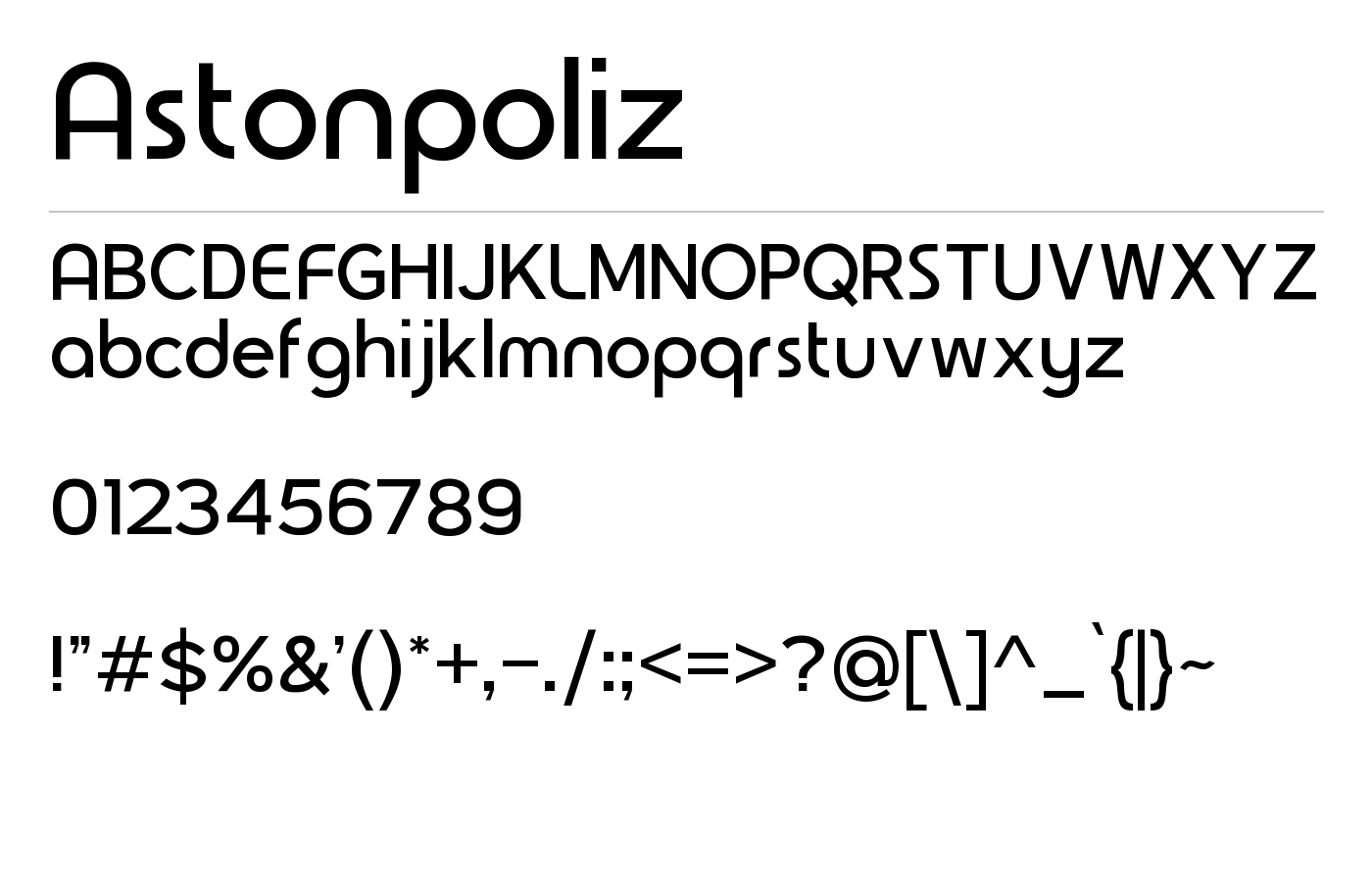
Astonpoliz is a modern sans serif font featuring clean, geometric shapes with a medium weight and a slightly condensed width. Its uniform stroke contrast and distinctive letterforms, like the unique tail on the Q and single-story a and g, give it a contemporary yet approachable feel. This font works well for branding, headlines, and editorial design where a sleek, professional, and minimalist aesthetic is desired.
Astonpoliz Font
About Astonpoliz Font
| Font family | Astonpoliz Font |
| Designer | Bambang Setiawan |